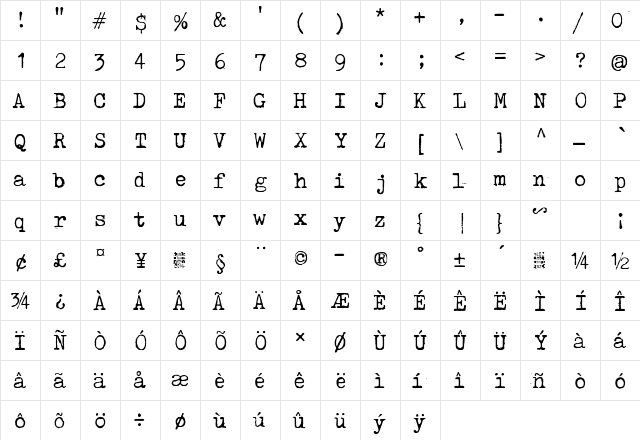
Tox Typewriter Regular
Design Context for Tox Typewriter Typeface
Tox Typewriter uses fixed-width spacing throughout, giving it the structured, systematic character associated with coding environments and technical documentation.
Pro Tip: Use Tox Typewriter with slightly increased line-height for extended reading — fixed-width spacing can feel dense in longer passages without extra breathing room.